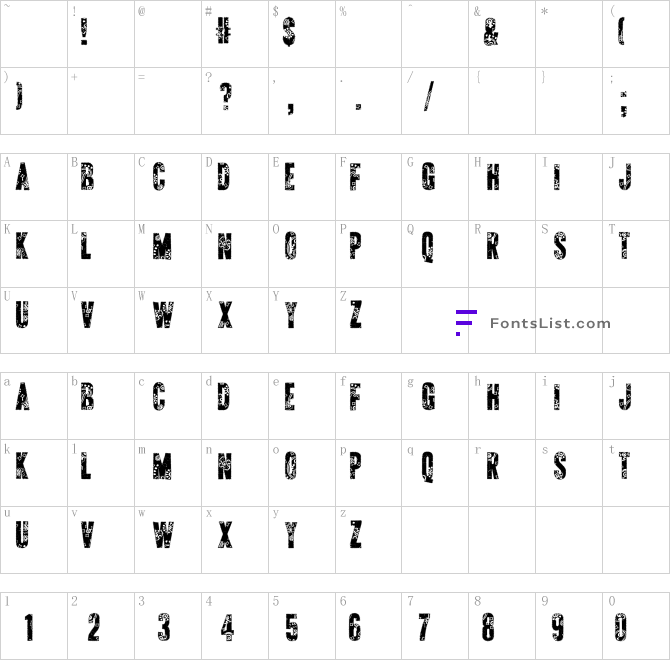
- Font Name:AP Applique Stitched
AP-Applique-Stitched.ttf is a very beautiful artistic font, AP-Applique-Stitched.ttf is widely used in the design and printing of various books and pictures,AP-Applique-Stitched.ttf has a strong visual impact,AP-Applique-Stitched.ttf is a commonly used font in newspapers, magazines and books, and is used in posters, e-commerce Poster design, store design, logo design, font design and other fields.AP-Applique-Stitched.